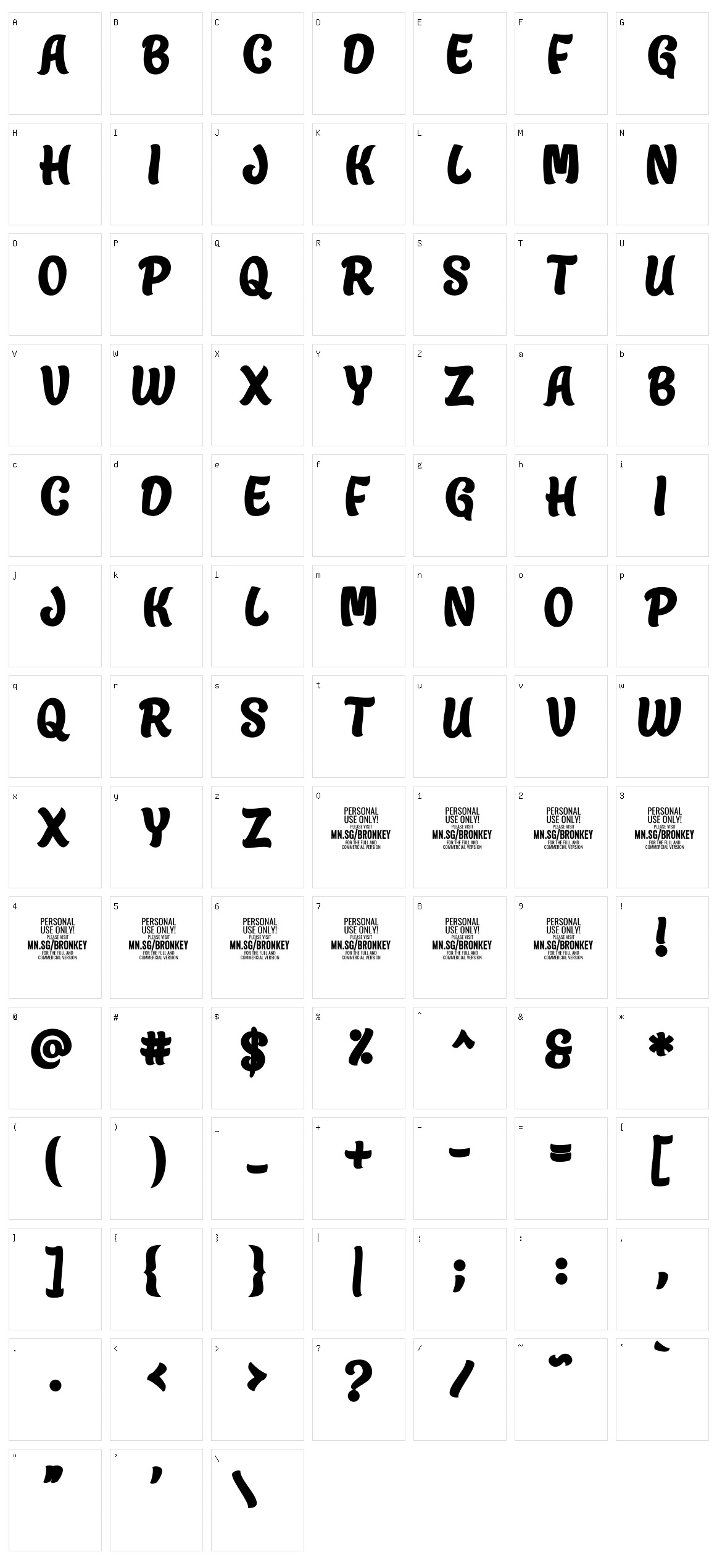
Bronkey is a fun sans-serif typeface.
In a quirky style, this cartoon font has happy movements and optimistic letterforms.
The comic lettering was drawn and created by Mans Greback in 2022.
The Bronkey family consists of three styles:
Thin, Regular, Bold, complimenting each other for the greatest design possibilities.
The font is built with advanced OpenType functionality and has a guaranteed top-notch quality, containing stylistic and contextual alternates, ligatures and more features; all to give you full control and customizability.
It has extensive lingual support, covering all Latin-based languages, from Northern Europe to South Africa, from America to South-East Asia.
It contains all characters and symbols you'll ever need, including all punctuation and numbers.